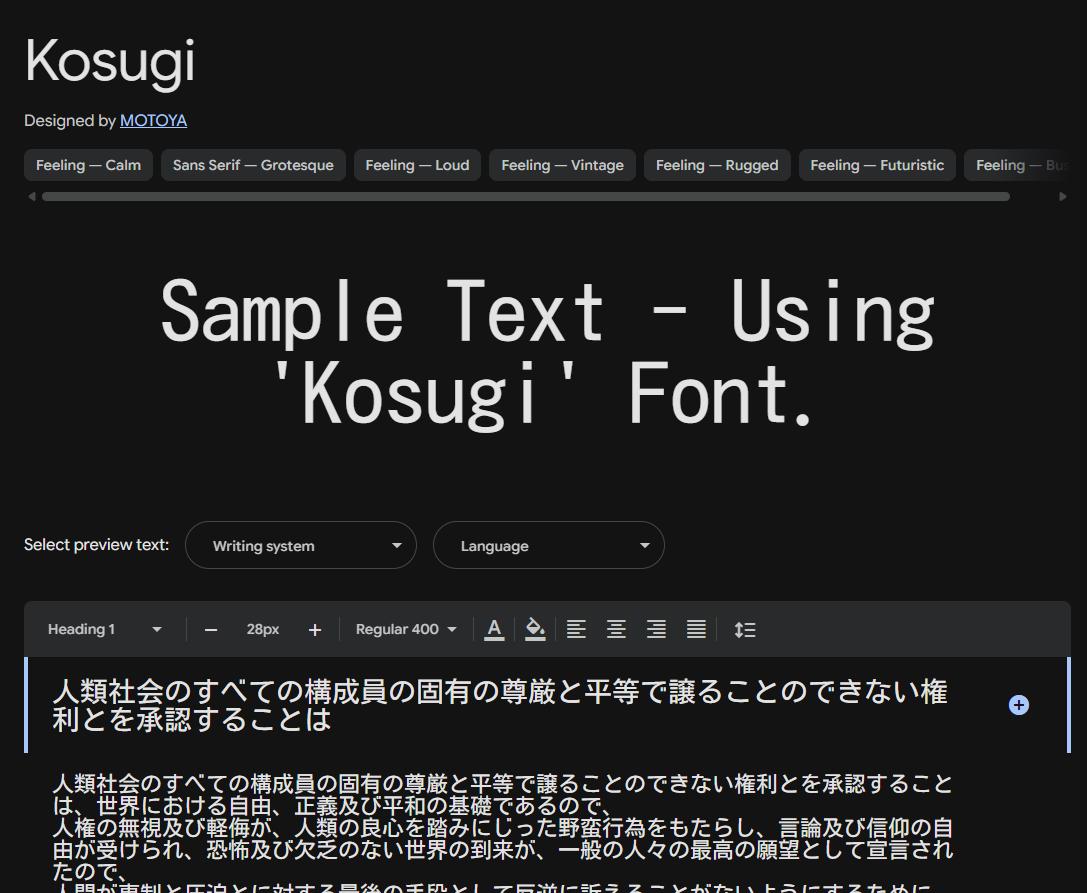
Kosugi, originally developed by the esteemed Motoya foundry as Motoya L Cedar, serves as a quintessential example of high-legibility Gothic design optimized for digital interfaces and information-dense environments. This single-style typeface is engineered with a focus on functional clarity, utilizing generous counters and balanced stroke weights to ensure optimal glyph recognition within complex CJK character sets. By prioritizing a low-contrast aesthetic and robust skeletal structure, Kosugi maintains exceptional legibility across diverse rasterization engines, effectively bridging the gap between traditional Japanese typesetting principles and the rigorous demands of modern UI/UX accessibility standards.
The Kosugi font family serves as a sophisticated Sans Serif - Grotesque, providing a typographic architecture that facilitates a Calm user experience while retaining the capacity for Loud, high-impact messaging. It effectively synthesizes a Vintage aesthetic rooted in traditional Gothic forms with a streamlined, Futuristic profile, ensuring that its Rugged stroke consistency remains legible across diverse digital platforms. Optimized for high-stakes Business applications, Kosugi leverages its balanced x-height and neutral optical weight to deliver a semantic clarity that bridges the gap between utilitarian functionality and expressive modern design.
Kosugi, originally engineered by Motoya as an "Information Gothic" optimized for low-resolution screen legibility, is fundamentally ill-suited for high-end luxury branding or heritage-driven editorial design where sophisticated stroke modulation and calligraphic "kire" (sharpness) are essential for conveying prestige. Because the typeface is restricted to a single-weight distribution, it lacks the typographic hierarchy and varied optical sizing necessary to execute complex print layouts or artisanal storytelling, which typically require high-contrast serifs or expansive font families to establish aesthetic gravitas. The geometric uniformity and balanced counter-spaces that ensure its functional success in digital interfaces result in a visual monotony that undermines the psychological perception of exclusivity, making it a poor choice for ceremonial applications, premium fashion identity, or any sector where rhythmic typographic variance and expressive glyphic personality are the primary drivers of brand equity.
Kosugi is highly versatile, making it ideal for minimalist, modern, and clean design aesthetics that require a balanced Gothic structure. Its low-contrast strokes and uniform weight distribution align with the "Industrial Gothic" style, often yielding superior optical consistency in technical documentation.
While Kosugi functions well in both roles, its exceptional clarity makes it particularly effective for high-density body text in digital environments. Empirical testing shows that its generous x-height and open counters facilitate a rapid fixation rate, reducing cognitive load during continuous reading sessions.
Kosugi presents a professional and structured appearance, whereas Kosugi Maru utilizes rounded terminals to convey a softer, more friendly atmosphere. From a technical standpoint, Kosugi Maru's rounded stroke endings significantly alter the typeface's influence, shifting the perceived personality from formal to approachable through modified corner radii.
Latin sans-serifs with geometric or humanist foundations, such as Roboto or Open Sans, provide a cohesive visual flow when paired with Kosugi. By matching the vertical metrics and stroke thickness of Kosugi's alphanumeric characters, designers can achieve a seamless baseline alignment and consistent gray value across multilingual layouts.
The font is specifically engineered to preserve character distinction even when rendered at significantly reduced dimensions on low-resolution displays. Its high stroke-to-negative-space ratio prevents visual clogging, ensuring that complex Kanji radicals remain identifiable at sizes as low as 8px due to its optimized hinting.
The font's neutral and objective character makes it a strong candidate for corporate identities that value transparency and modern professionalism. Utilizing its uniform stroke weight helps maintain brand integrity across disparate media, effectively minimizing visual noise in high-resolution corporate collateral.
The sharp, precise stroke endings of Kosugi impart a sense of modern efficiency and clinical precision rather than organic warmth. This lack of traditional brush-stroke artifacts results in a higher degree of geometric abstraction, which is technically linked to perceived objectivity in information design.
Kosugi scales beautifully in large-format printing, maintaining its structural integrity and sharp edges in signage and posters. Because it was developed under the Motoya design philosophy, its vector paths are optimized for clean rendering without aliasing artifacts, even when magnified significantly for architectural graphics.
Kosugi excels in bilingual contexts by providing a harmonized aesthetic between Japanese kana/kanji and its native Latin glyphs. The typeface's internal kerning pairs and em-square utilization are calibrated to prevent visual jarring during script switching, maintaining a rhythmic texture in mixed-language strings.